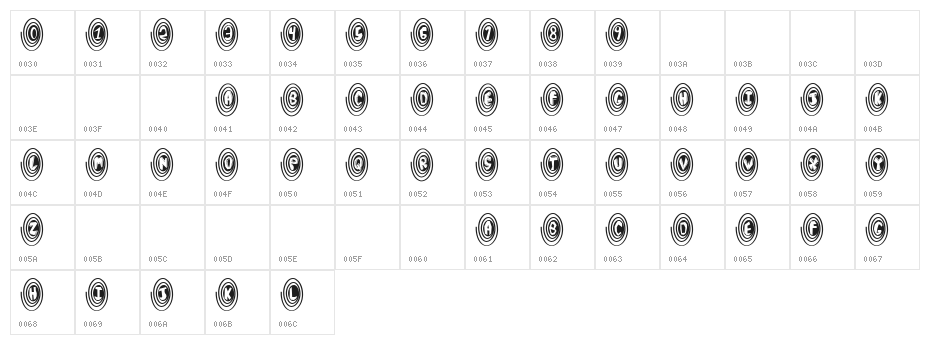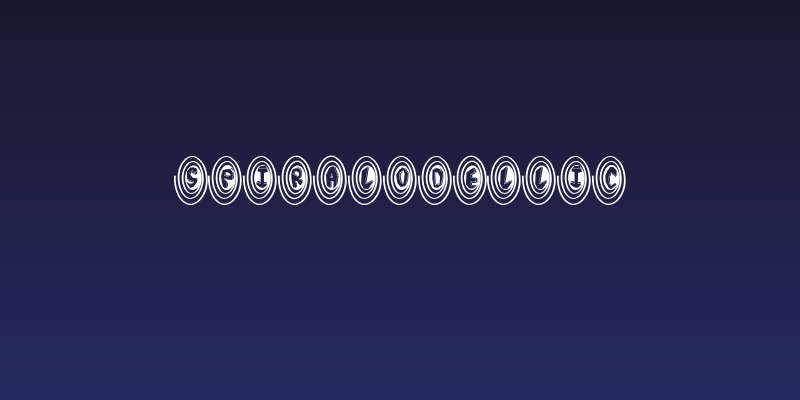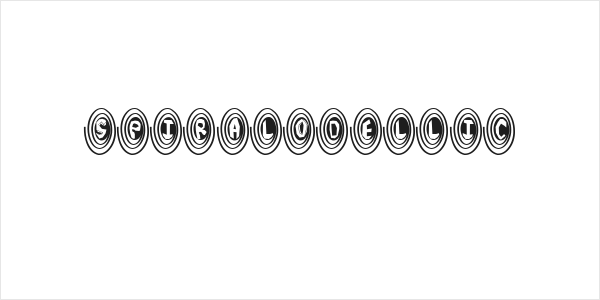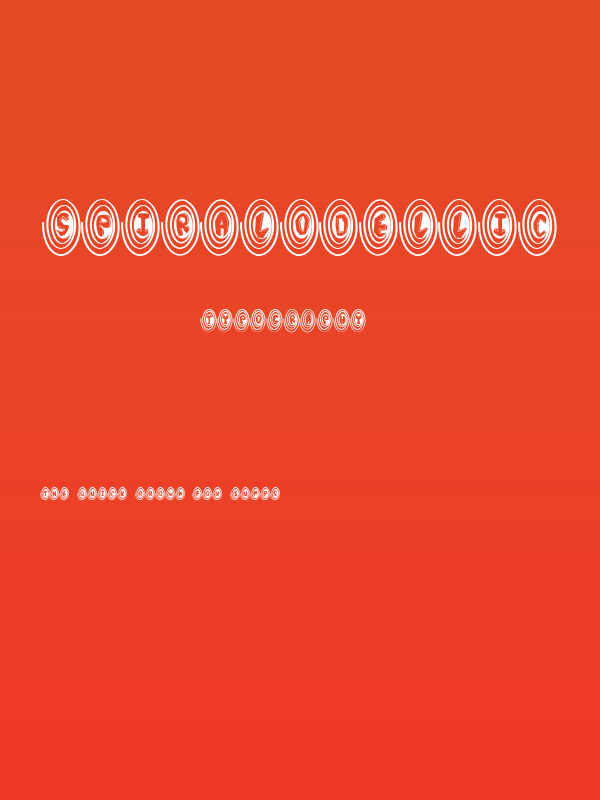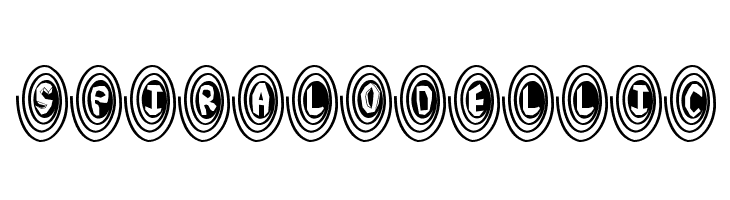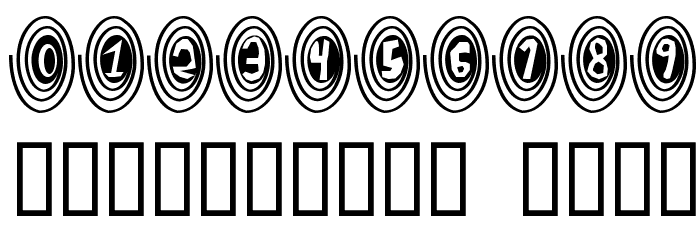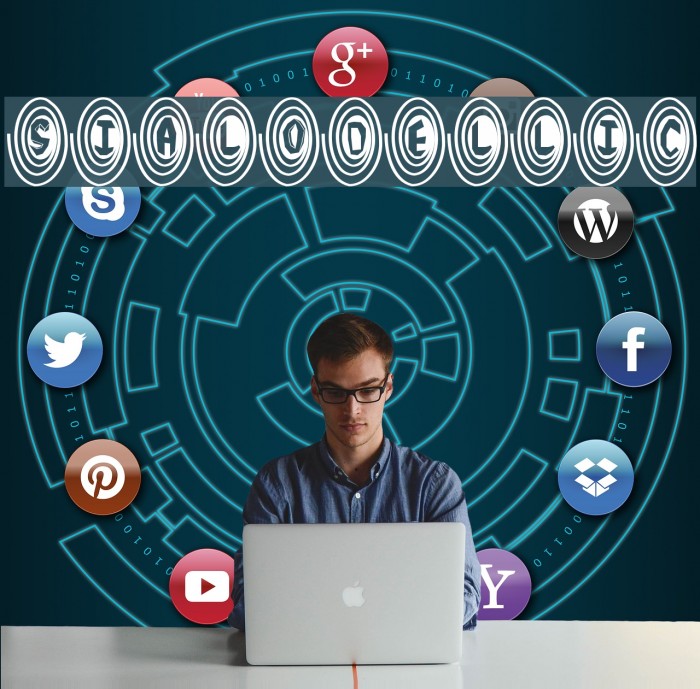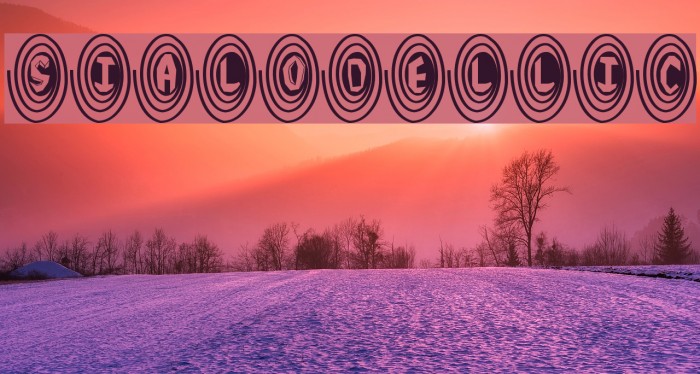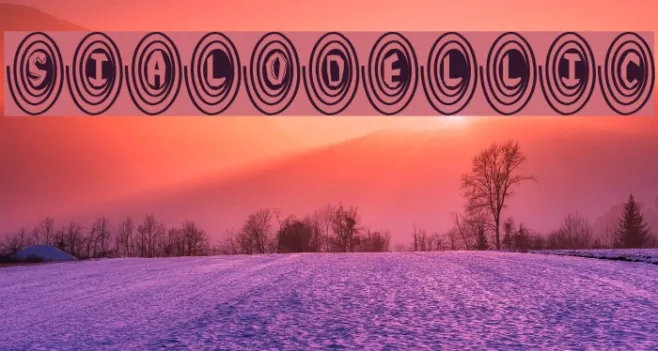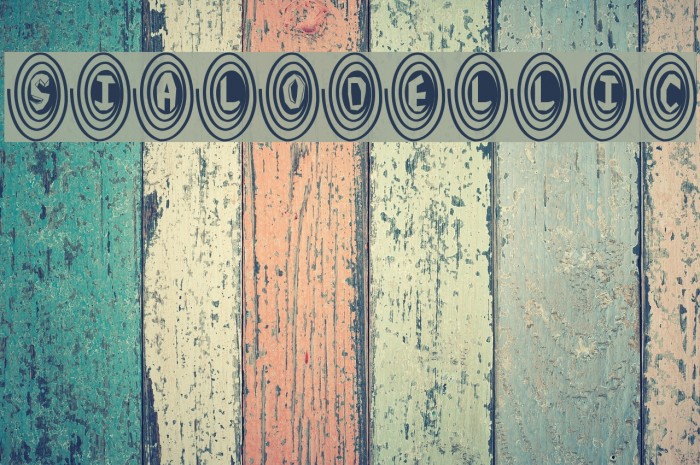
SpiralOdellic Font
SpiralOdellic Description
This font features a unique and playful design where each character is encased in a series of concentric circles, creating a spiral effect. The letters and numbers are bold and distinct, with a whimsical style that stands out. The characters are evenly spaced within their circular frames, providing a consistent and cohesive look. This font's decorative nature makes it ideal for creative projects that require a touch of fun and originality. Its boldness ensures readability while maintaining an artistic flair.
| Proposed Projects | Ideal for posters, children's book covers, party invitations, and creative branding projects. |